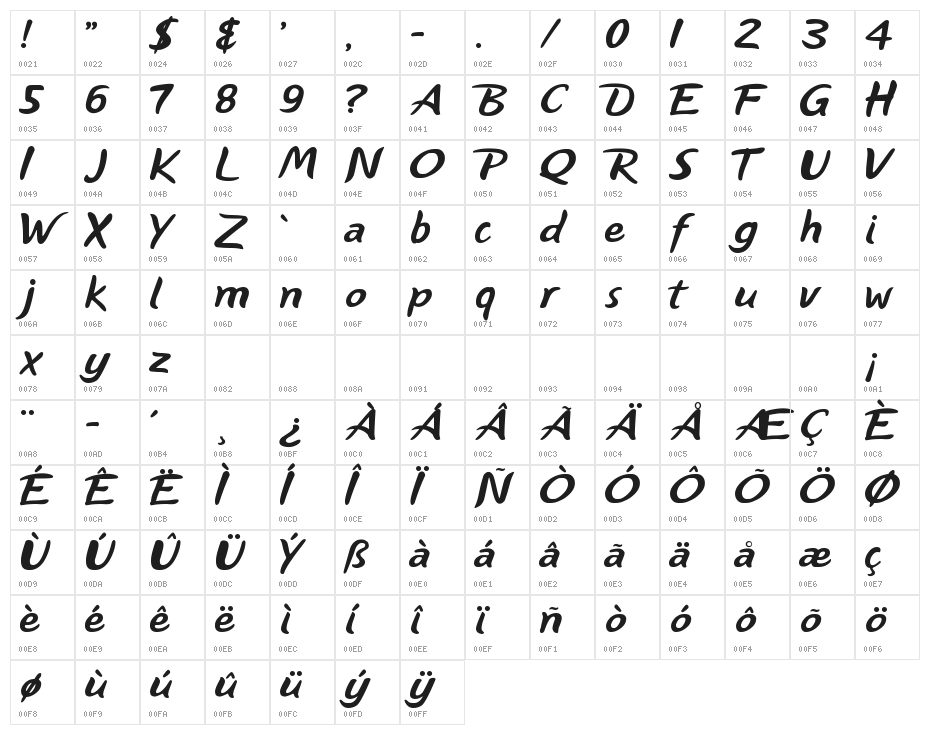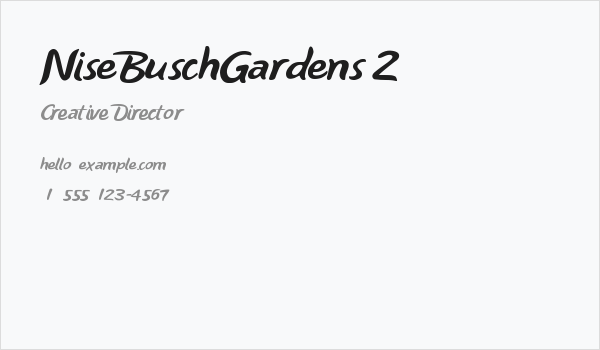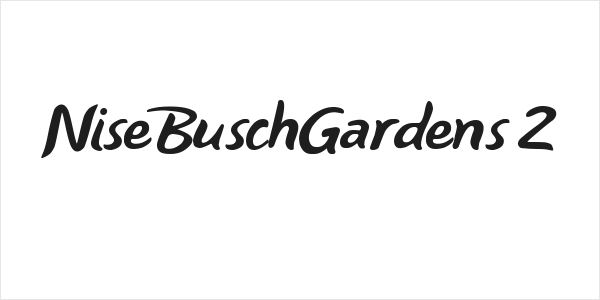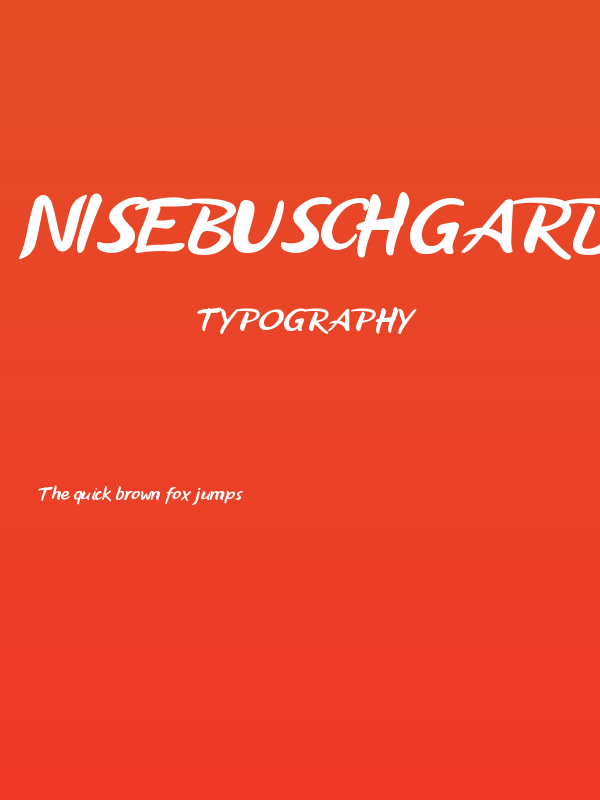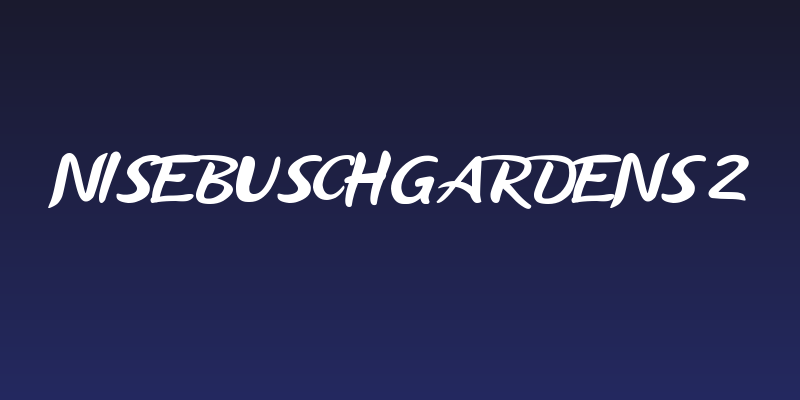
NiseBuschGardens 2 Font
NiseBuschGardens 2 Description
This font exhibits a dynamic and fluid script style, characterized by its smooth, flowing curves and slightly slanted orientation. The uppercase letters are bold and prominent, with a playful yet elegant flair, while the lowercase letters maintain a consistent rhythm and balance. The numerals are well-integrated, matching the overall aesthetic with their rounded forms. Special characters are creatively designed, adding to the font's versatility. The strokes are moderately thick, providing a medium contrast that enhances readability without compromising the artistic appeal. This font is ideal for projects that require a touch of sophistication and creativity.
| Proposed Projects | Ideal for branding, invitations, greeting cards, and creative advertising. |